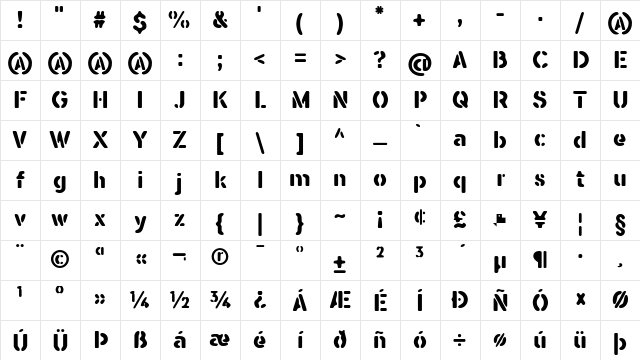
SEISDEDOS DEAD Bold Free Font
SEISDEDOS DEAD Bold
Foundry: deFharo
Designer: Fernando Haro
Design Context for SEISDEDOS DEAD
SEISDEDOS DEAD is a composed and adaptable typeface that performs quietly and consistently across a wide range of design contexts. Its bold stroke weight gives it real presence on the page.
Who designed the SEISDEDOS DEAD Bold font?